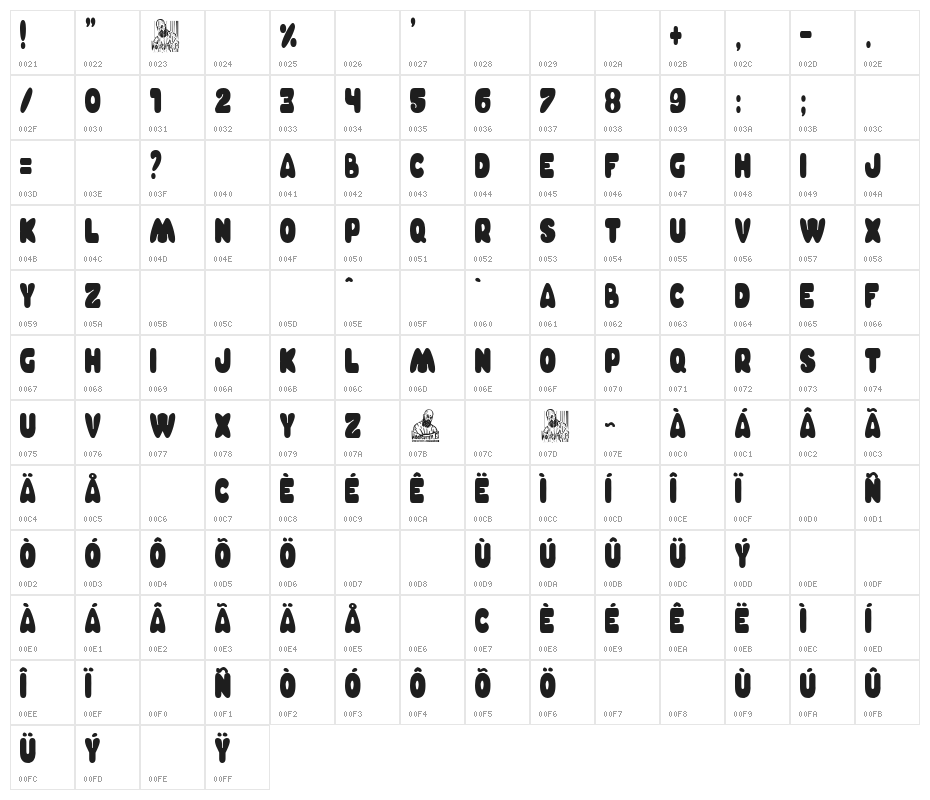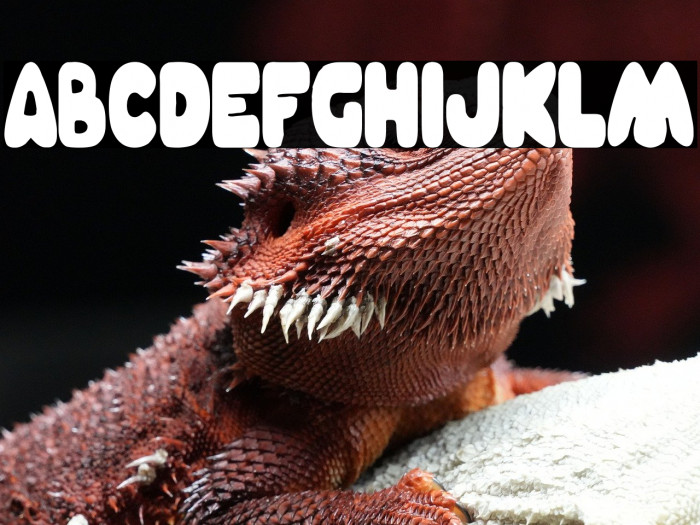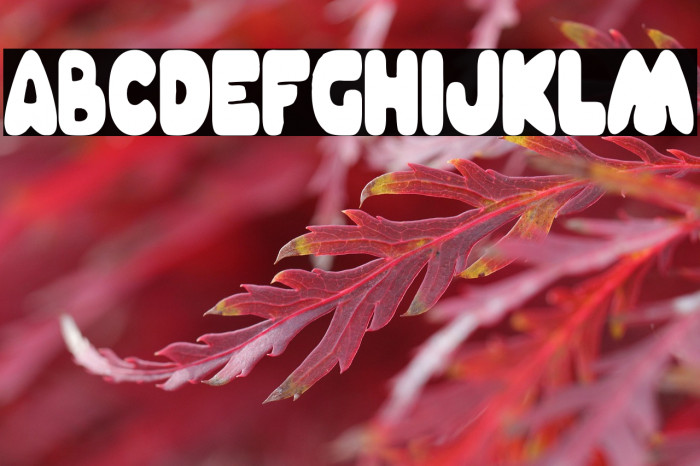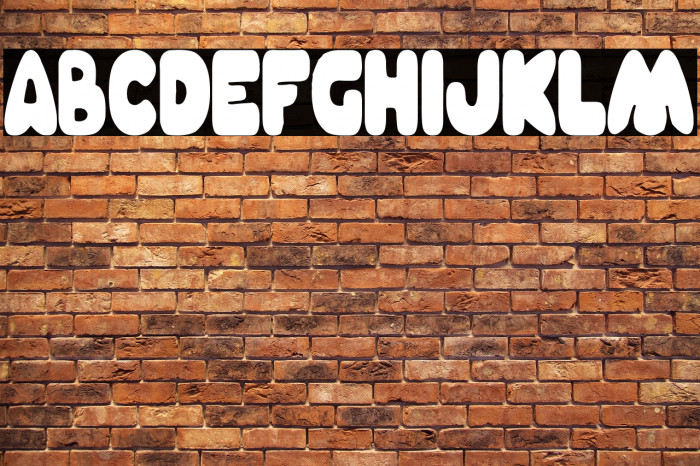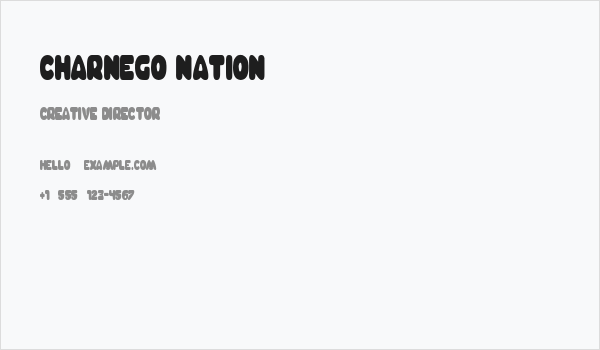
Charnego Nation Font
Charnego Nation Description
This font features bold, rounded characters with a playful and chunky appearance. The letters are uniformly thick, giving a sense of weight and presence. The rounded edges and smooth curves contribute to a friendly and approachable look, making it suitable for informal and fun designs. The numbers and special characters maintain the same bold style, ensuring consistency across all elements. The overall design is eye-catching and ideal for grabbing attention, with its high contrast and distinctive shapes.
| Overall Style | Playful, Bold, Decorative |
| Use Case | Headlines, Posters, Branding |
| Proposed Projects | Ideal for children's books, playful branding, posters, and any design needing a fun and bold statement. |